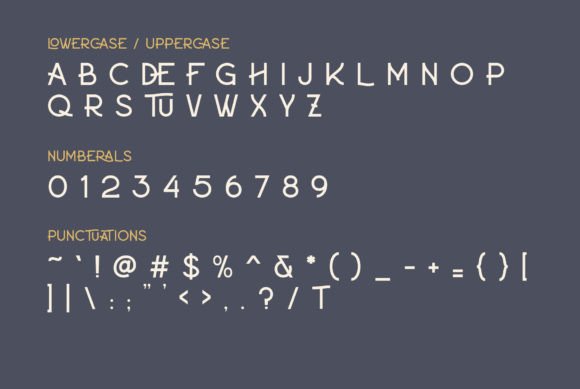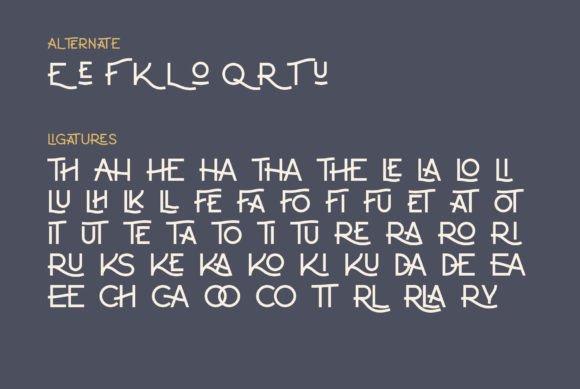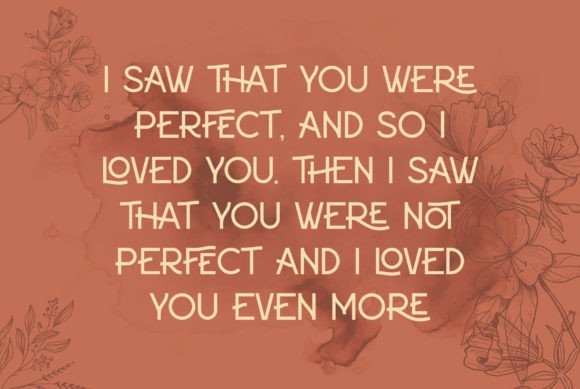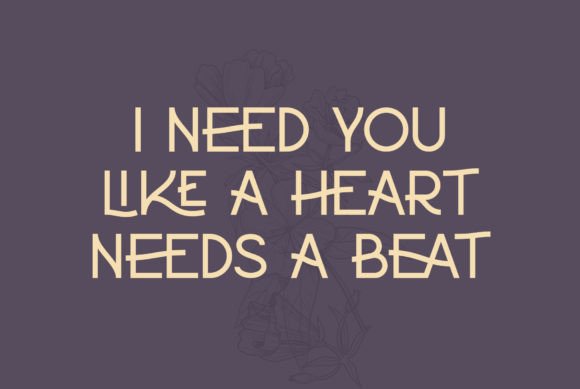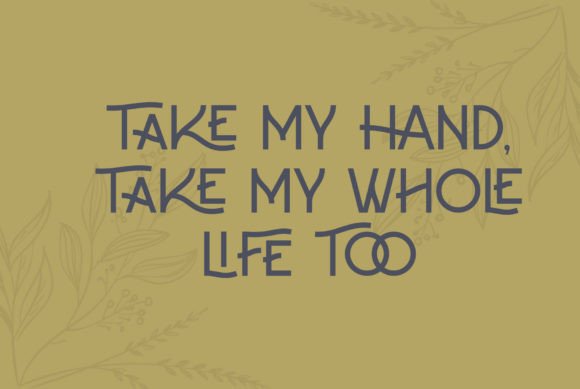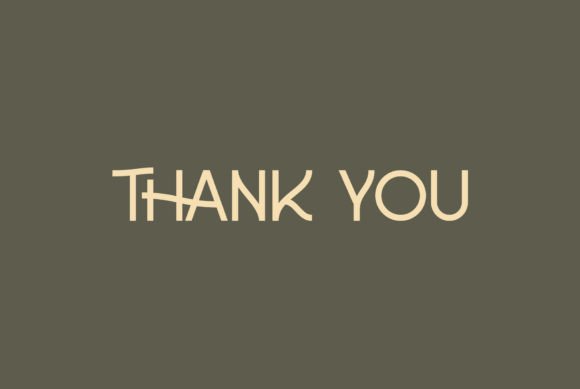
Introduction to Kuali Font
Have you ever stared at a blank canvas, searching for the perfect font to bring your creative project to life? The moment when everything falls into place, and your vision begins to take shape, is truly magical. For designers, this moment is what makes all the hard work worth it.
That’s why we’re excited to introduce you to the Kuali Font, a stylish sans display font that’s sure to elevate your designs. With its unique character and high-quality design, this font is perfect for headlines, branding, print templates, logos, and more. Whether you’re working on a free download or a paid project, the Kuali Font is a valuable design resource that will help you achieve your creative goals.
Kuali Font
- High-quality, modern sans-serif font designed for creative projects, with a clean and minimalist aesthetic.
- Features a transparent background, making it ideal for use on any color or background image.
- Includes a comprehensive character set, covering a wide range of languages and characters.
- Designed to be highly scalable, with a resolution of 300 DPI, making it suitable for use in a variety of contexts, from small text to large headings.
- Perfect for use in digital design, including websites, mobile apps, and other interactive projects, as well as print design, such as brochures and business cards.
Honest Review: Kuali Font
I recently had the chance to work with the Kuali Font, a high-quality, modern sans-serif typeface. I was immediately drawn to its clean lines and transparent background, making it perfect for any creative project.
- ✨ The Kuali Font is highly legible, even at small font sizes.
- ✨ The font’s modern design makes it perfect for creative projects, such as branding, packaging, and advertising.
While the Kuali Font is an excellent choice for many projects, there are some limitations to be aware of. The font may not be suitable for formal or traditional designs, as it has a more modern feel.
- ⚠️ The font may not be suitable for formal or traditional designs.
- ⚠️ The font’s modern design may not appeal to those who prefer more classic or elegant typography.
Overall, I’m impressed with the Kuali Font. Its high quality, modern design, and free download option make it an excellent choice for any creative project. While it may not be suitable for every design, it’s a great addition to any designer’s toolkit.
Tips for Getting the Most Out of Kuali Font
Kuali Font is perfect for creative projects, such as logos, brochures, and business cards. Its high quality and transparent background make it ideal for use in designs where a clean and modern look is desired.